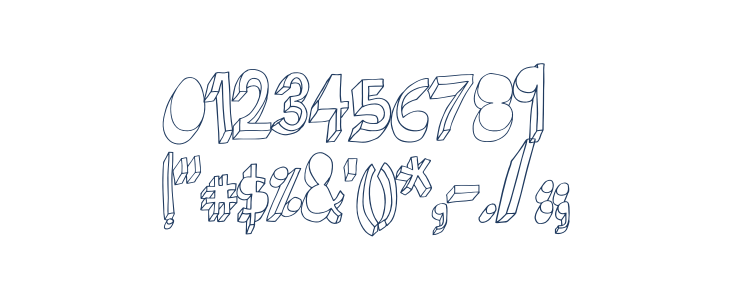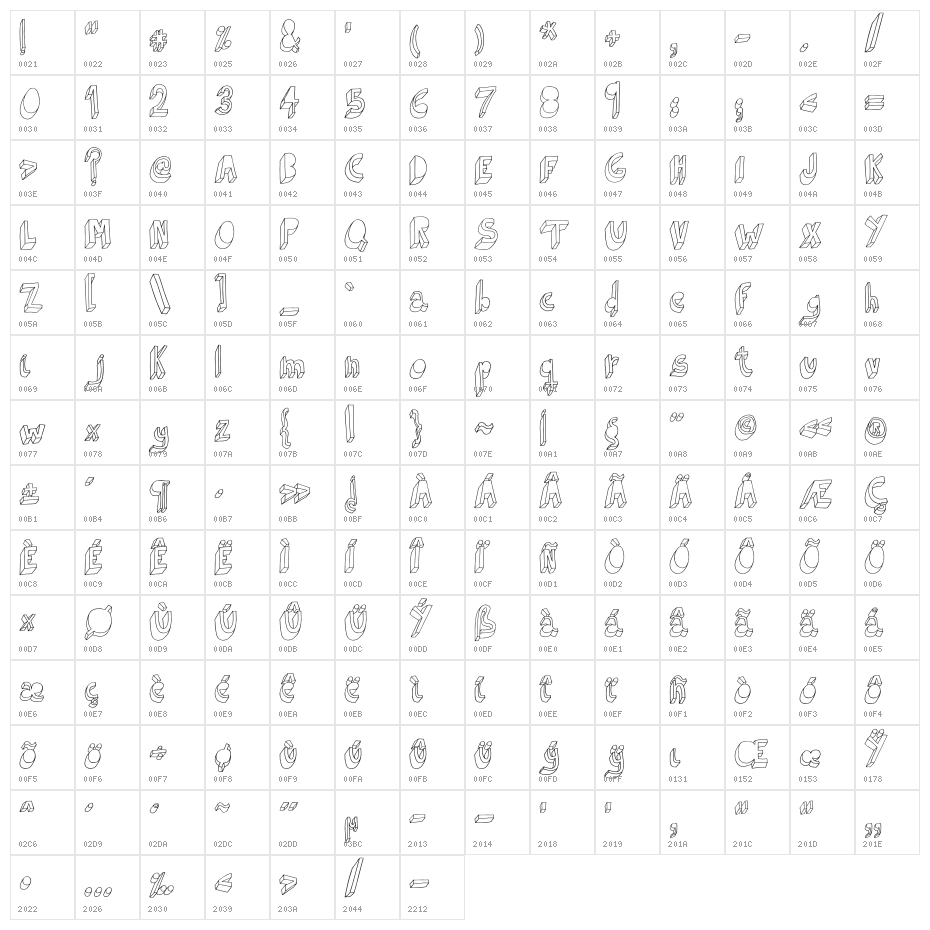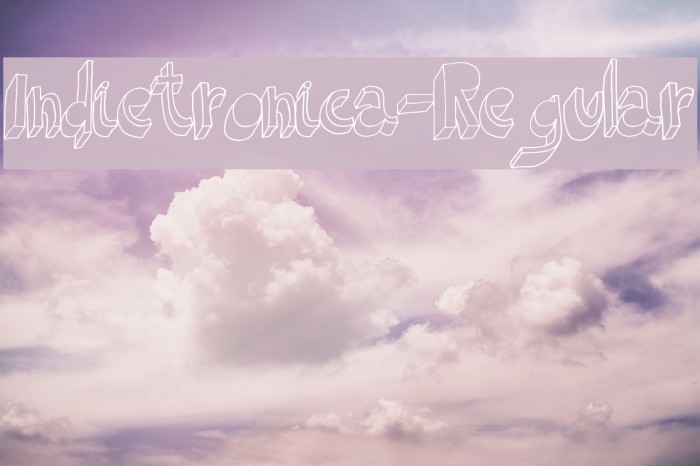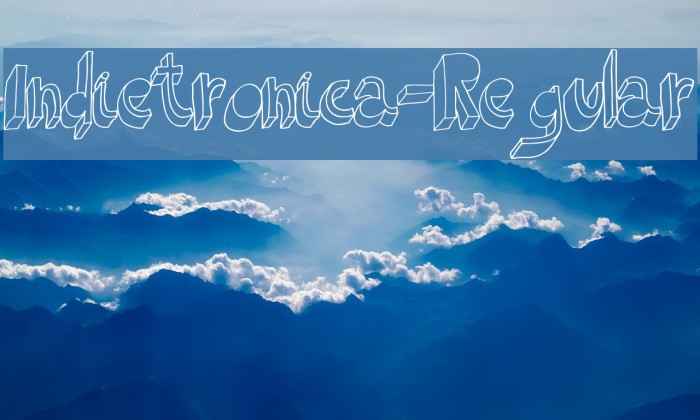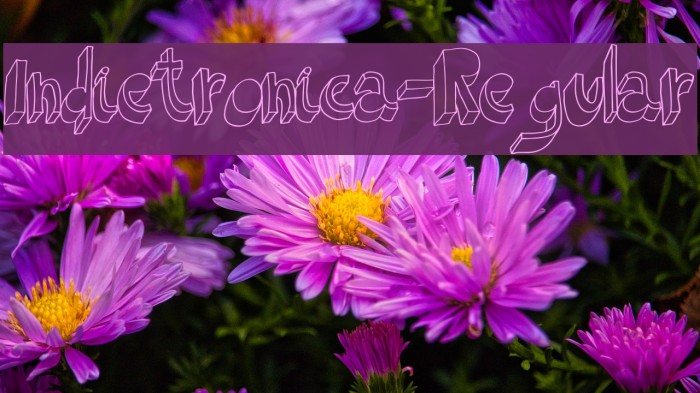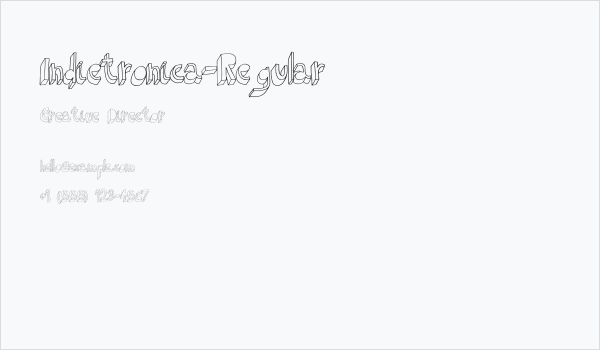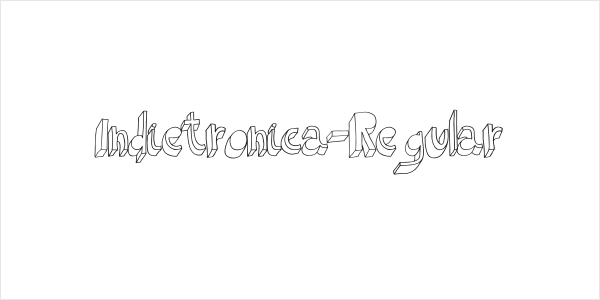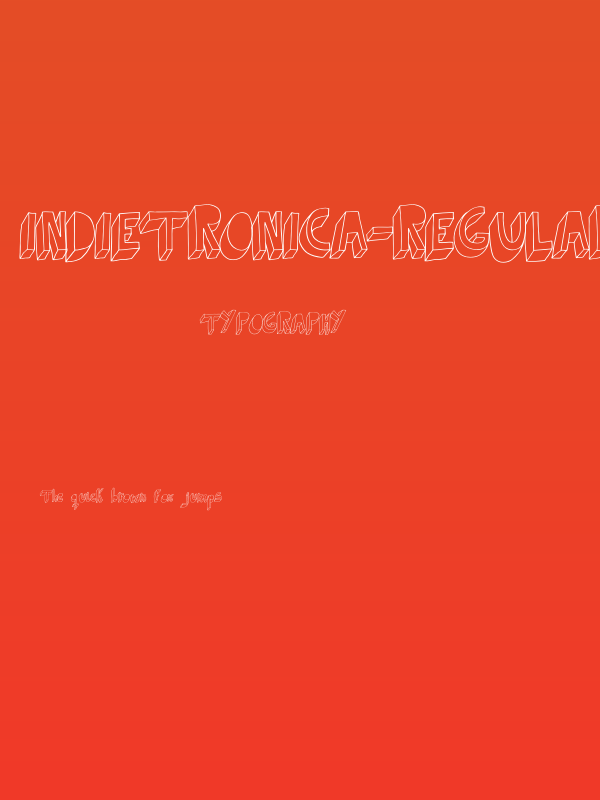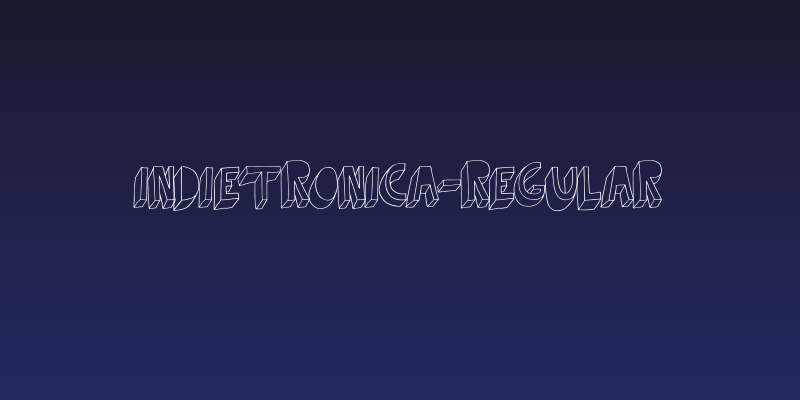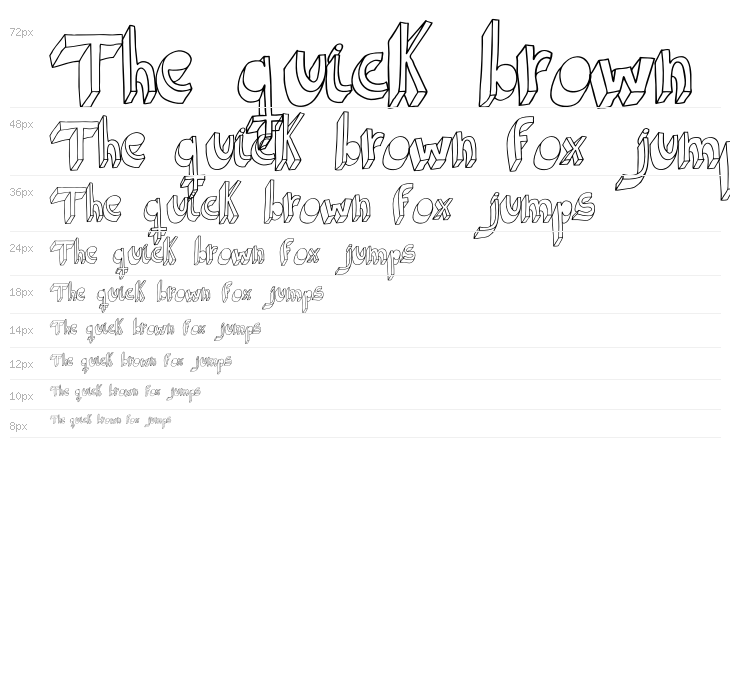
Indietronica-Regular Font
Indietronica-Regular Description
This font features a unique 3D block style with a hand-drawn aesthetic, giving it a playful and artistic appearance. The letters are outlined with a bold, black line, creating a sense of depth and dimension. Each character has a slightly irregular shape, adding to the handcrafted feel. The uppercase and lowercase letters maintain a consistent style, with rounded edges and a whimsical flair. Numbers and special characters follow the same design principles, ensuring a cohesive look across all elements. This font stands out with its creative and eye-catching design, making it ideal for projects that require a bold and artistic touch.
| Proposed Projects | Ideal for posters, album covers, children's books, and creative branding projects. |